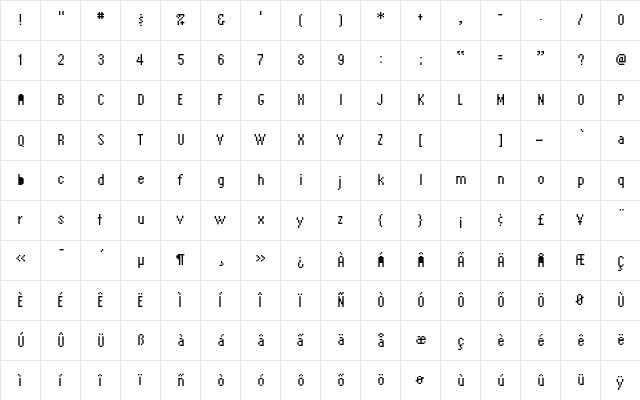
EmperorEight Roman
Design Context for EmperorEight Typeface
EmperorEight is a composed and adaptable typeface that performs quietly and consistently across a wide range of design contexts.